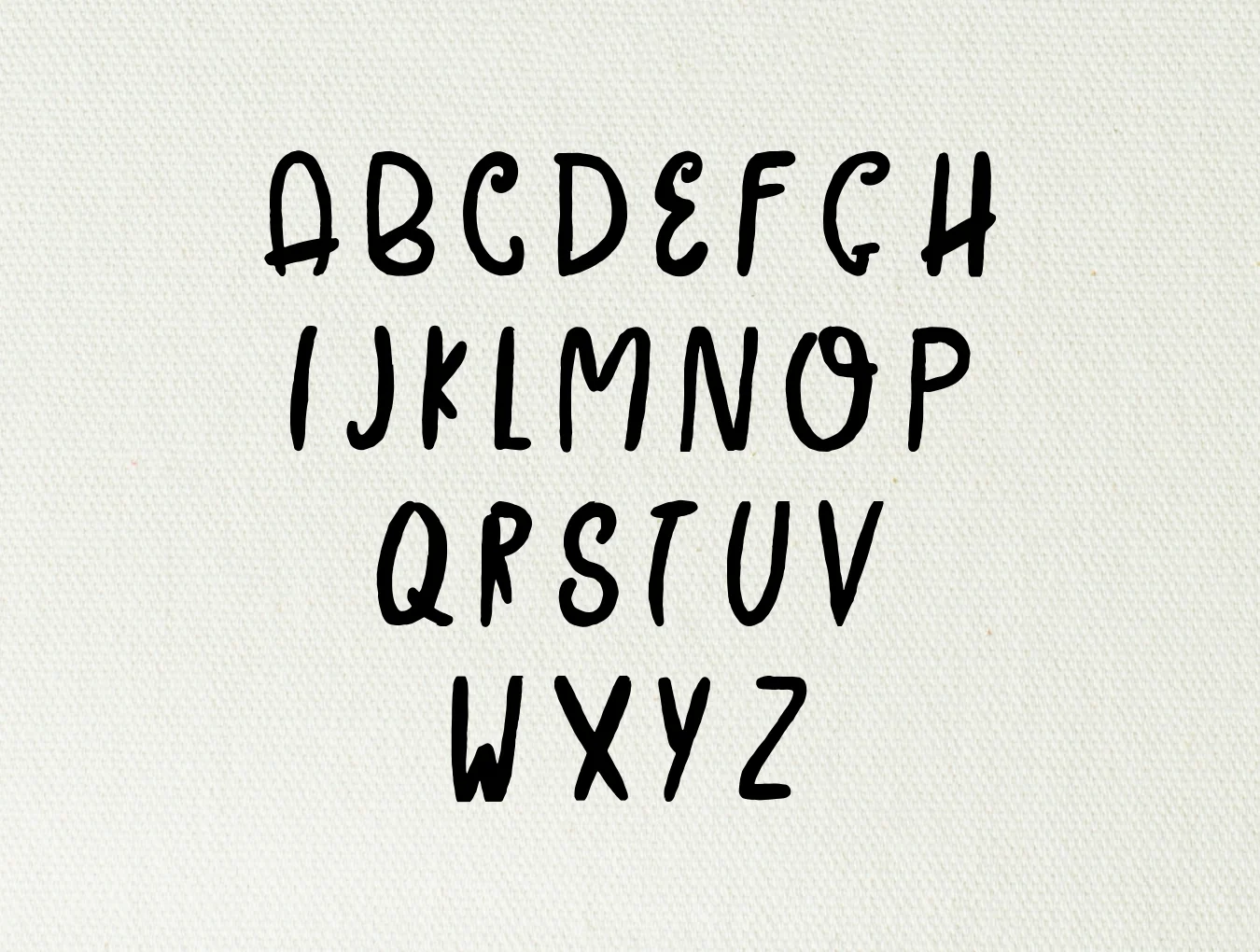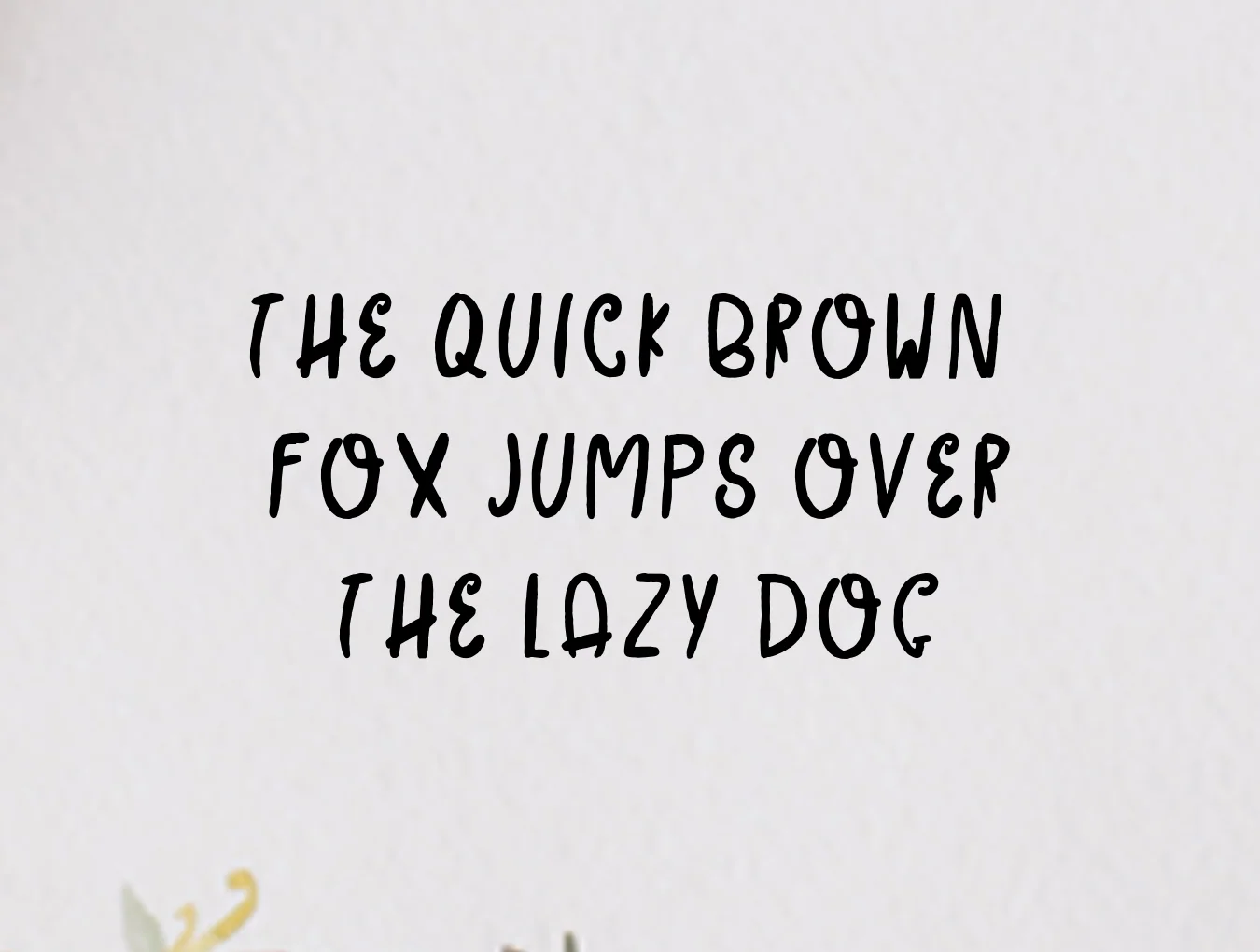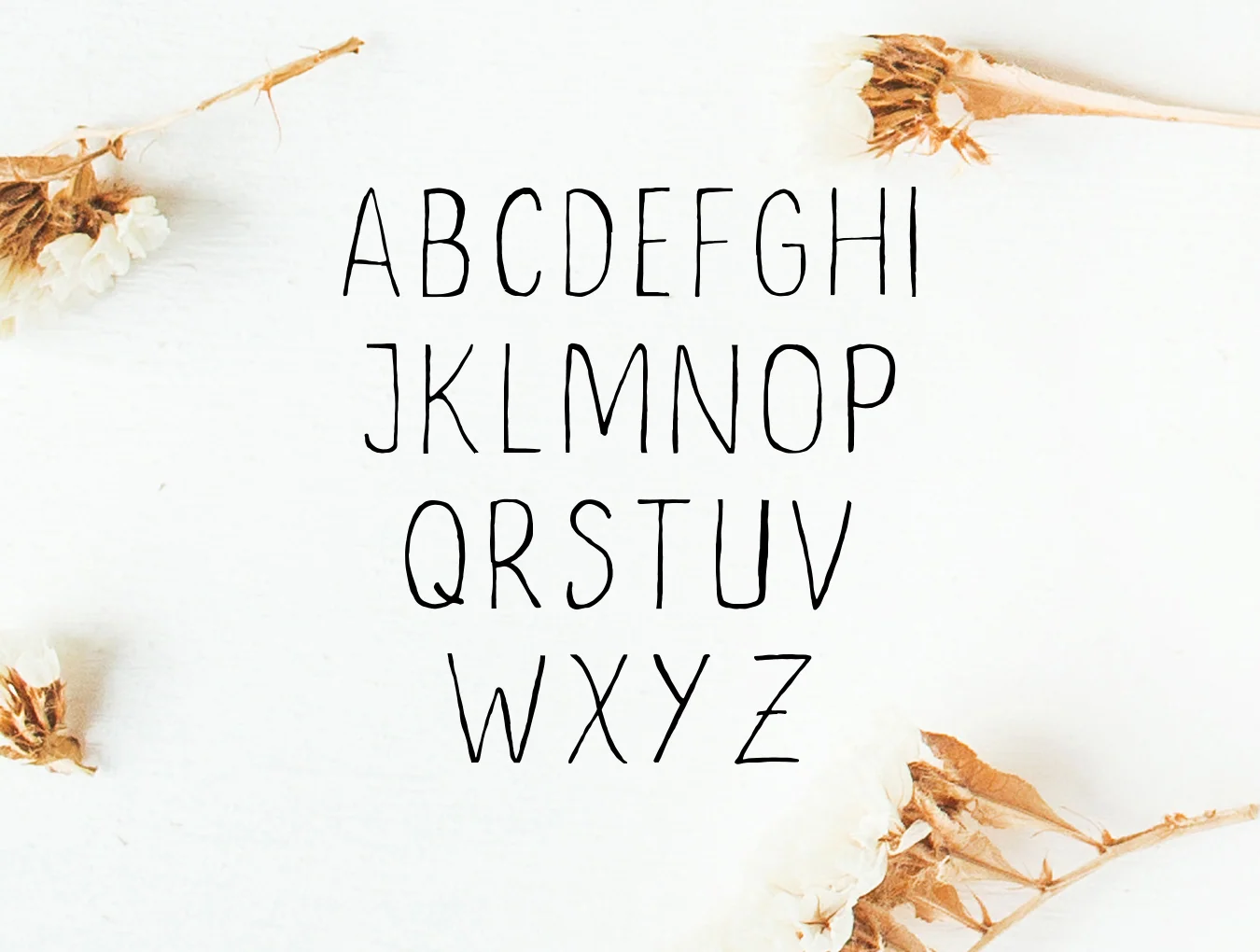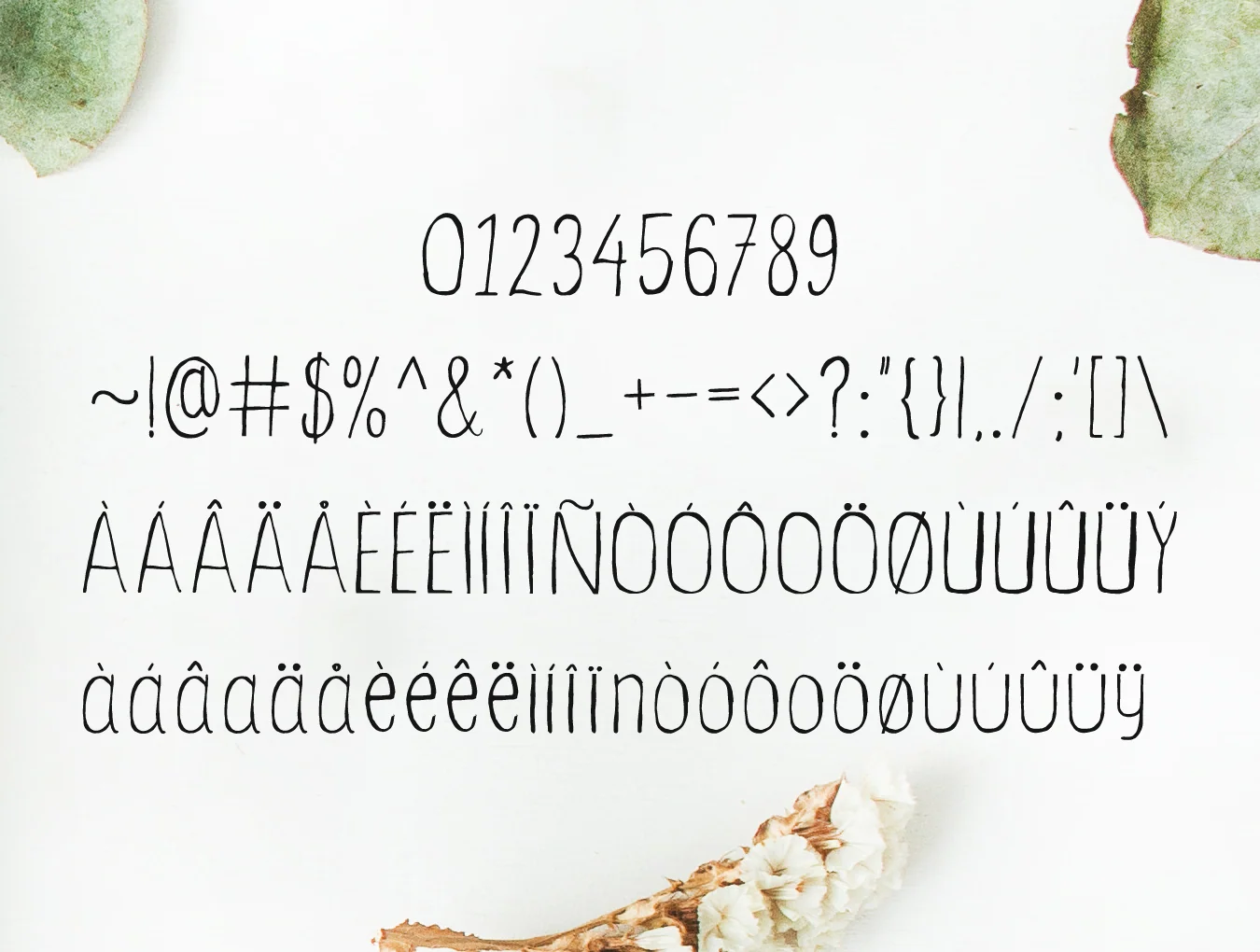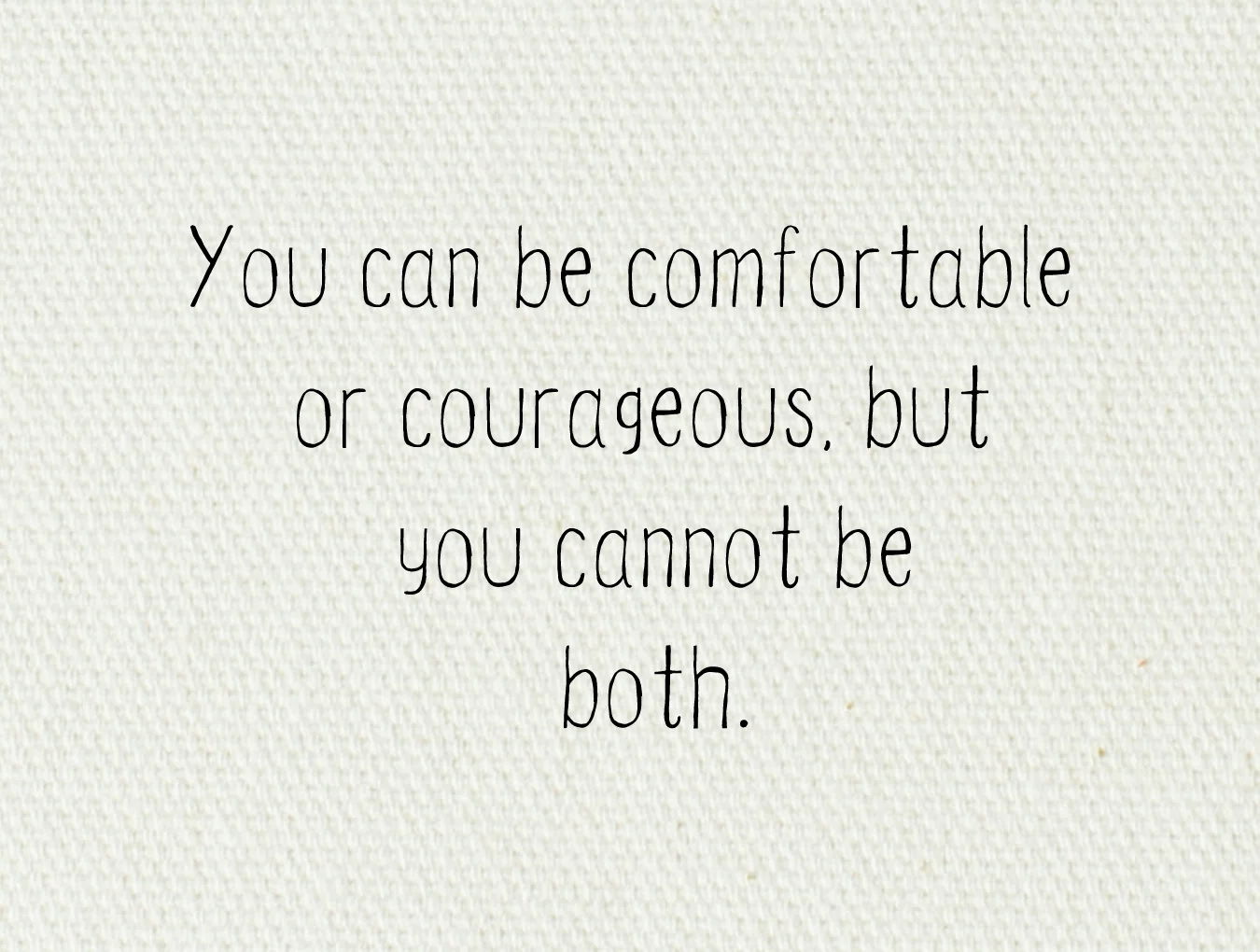
Ceica Handwritten Duo Font
Sans-serif font style
Ceica set with 96 characters
Fabeena includes 160 symbols
Standard regular weight
Sans-serif font style
Ceica set with 96 characters
Fabeena includes 160 symbols
Standard regular weight
Ceica Handwritten Duo Font is a handmade brush script pair with uppercase and lowercase letters, numbers, punctuation, and alternates. Use wide-spaced all caps for an elegant feel, or mix cases for a timeless style. Great for quotes, branding, logos, merch, social posts, displays, headers, invitations, weddings, titles, and packaging.